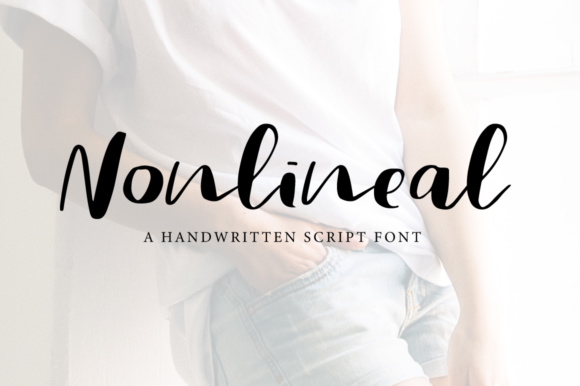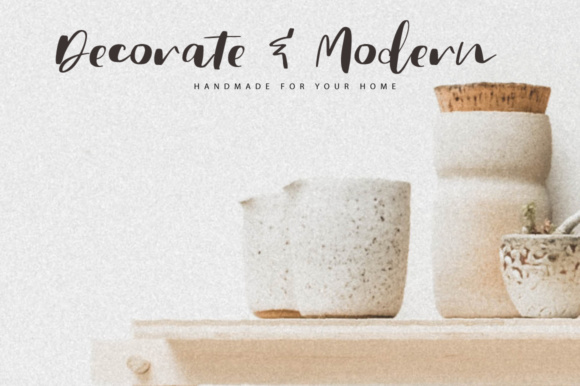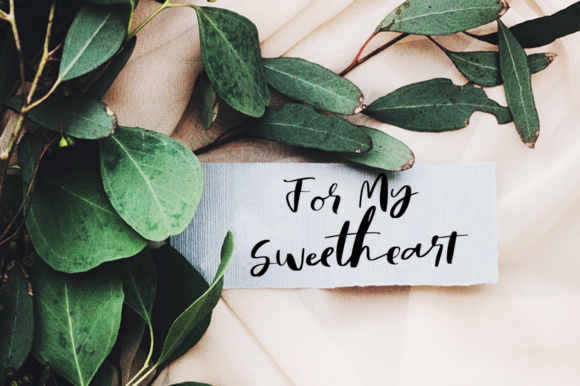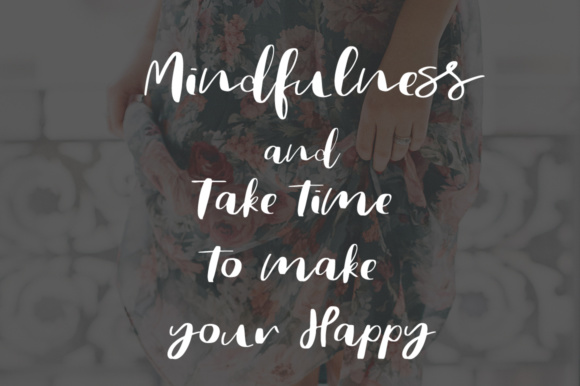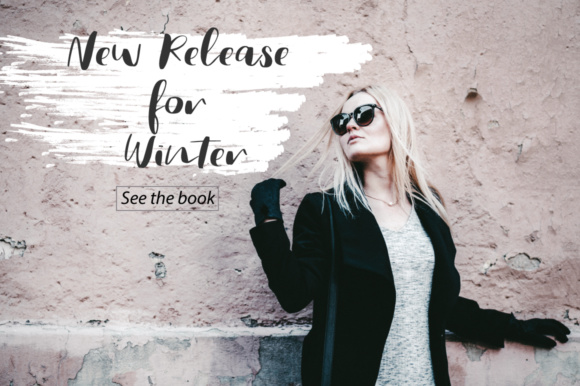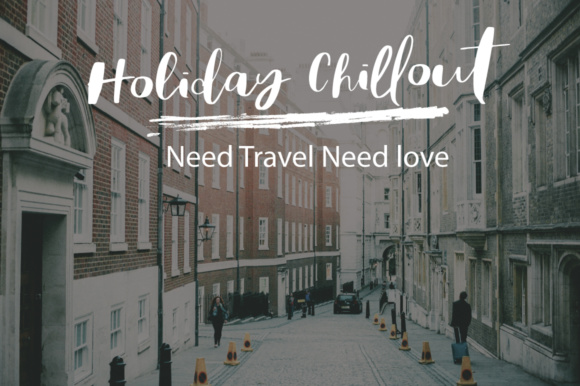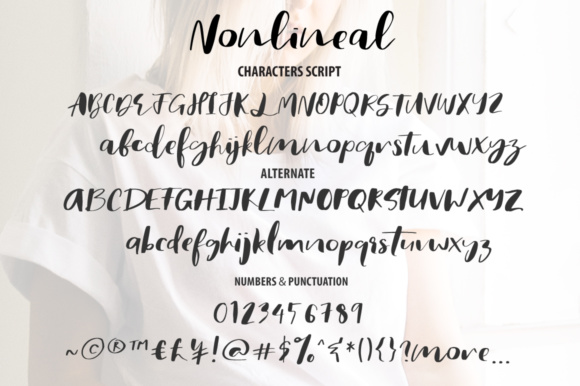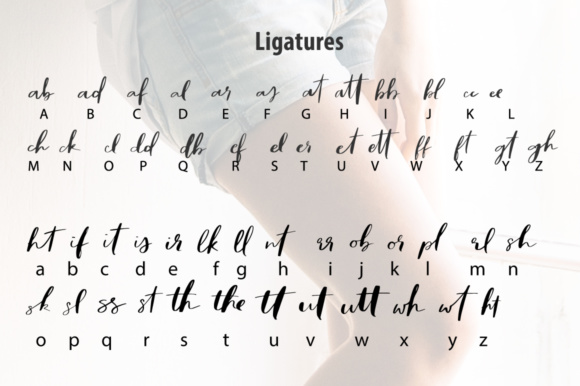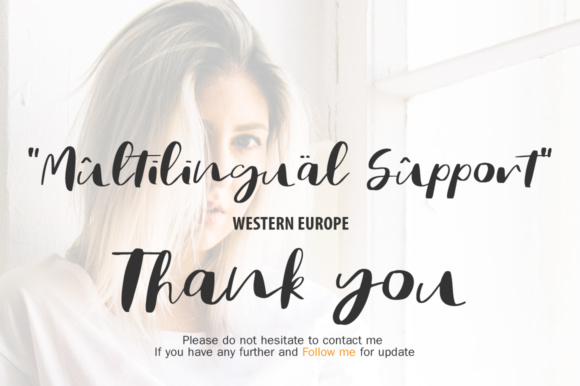
Nonlineal Font
About Nonlineal Font
Nonlineal is a chic looking script font.
Each and every single letter has been carefully created by hand and optimized digitally. It is a great font for creating luxurious looking designs, and will help you to add a feminine, romantic touch to your designs.